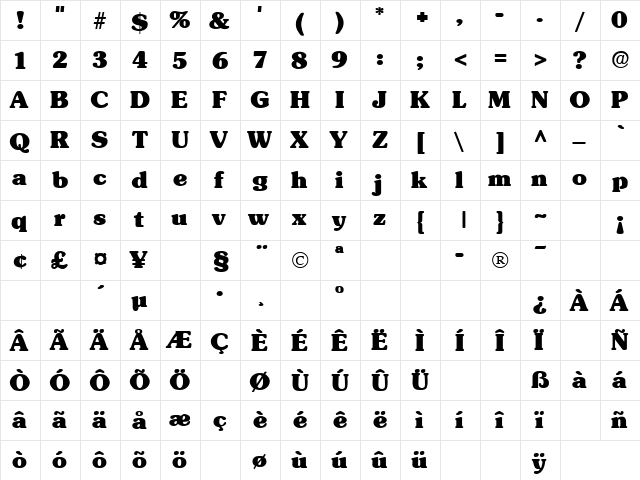
Subway Regular
Design Context for Subway Typeface
Subway takes a measured approach to typography — its balanced proportions and neutral character make it a reliable workhorse for both digital and print work.